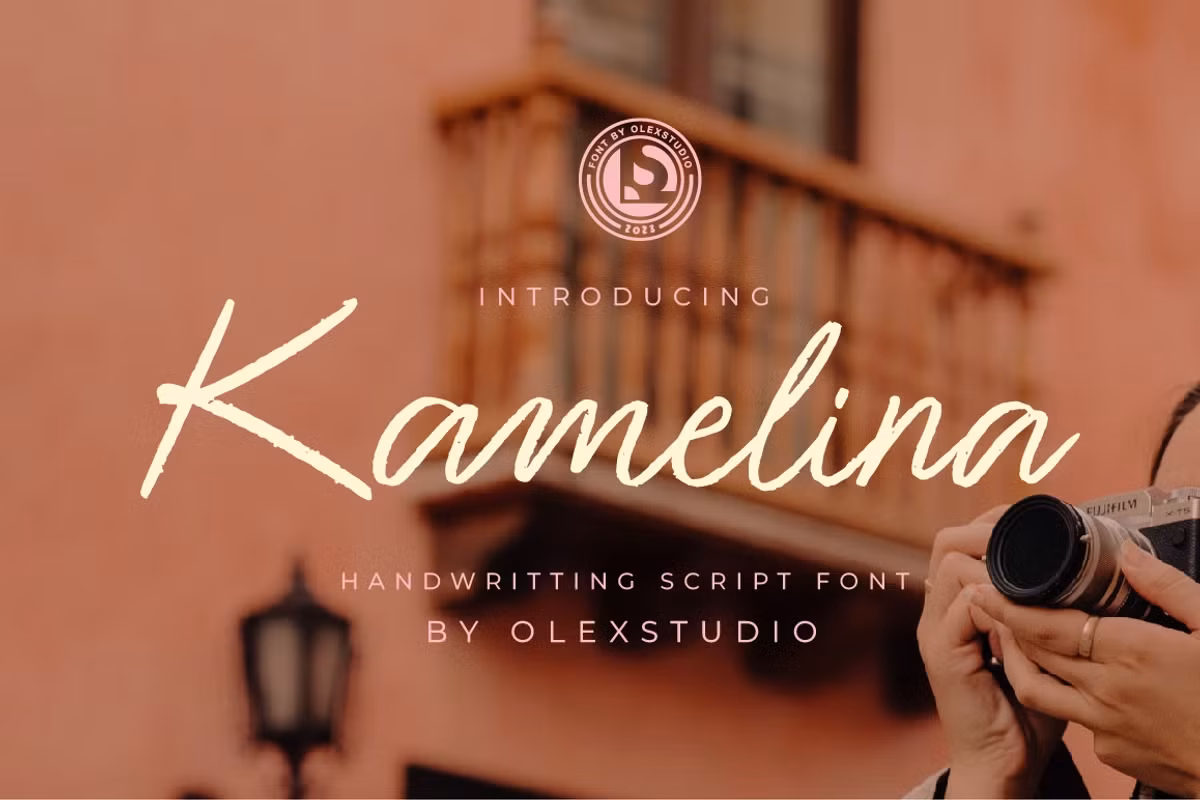
Please note, to use this font for commercial purposes, you must purchase the full version. Kamelina is a beautiful and elegant handwriting font that adds a personal, organic touch to your designs. With its smooth, flowing strokes and graceful curves, this font is perfect for invitations, greeting cards, branding, and creative projects. Whether you're designing a wedding invitation, a custom logo, or a stylish quote, Kamelina brings a warm, authentic feel to your work. Test it out and enjoy free download access for personal use. Experience the refined elegance of Kamelina Handwriting Font Free Download before purchasing the commercial license. Add a handwritten touch to your designs with this lovely font.